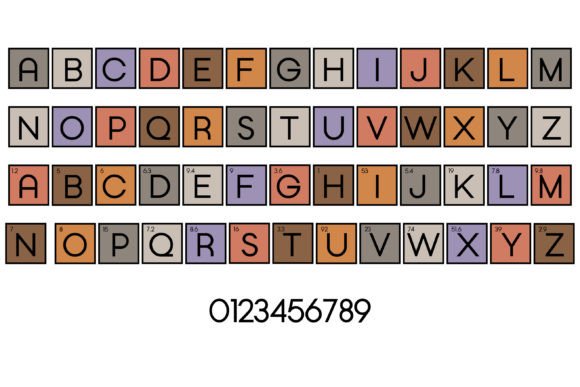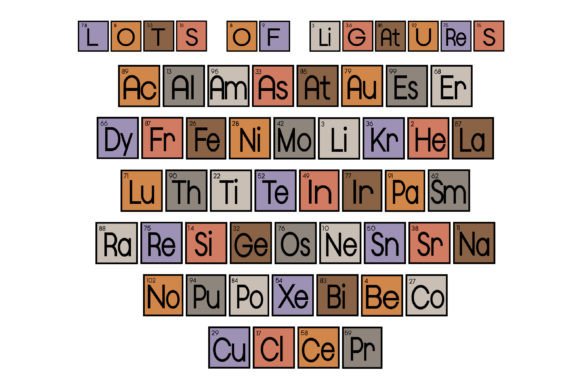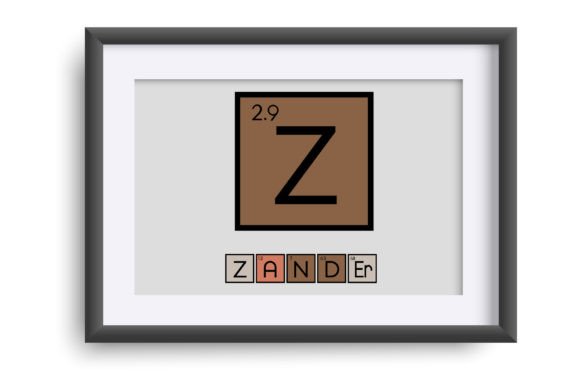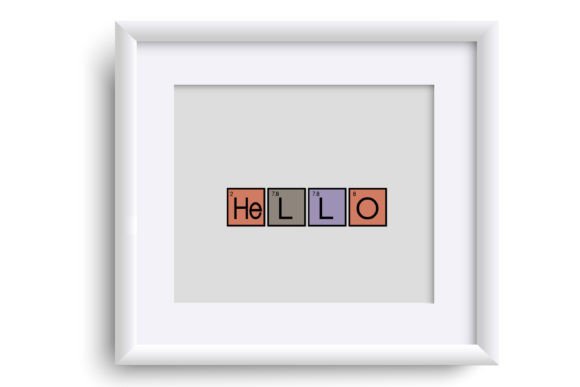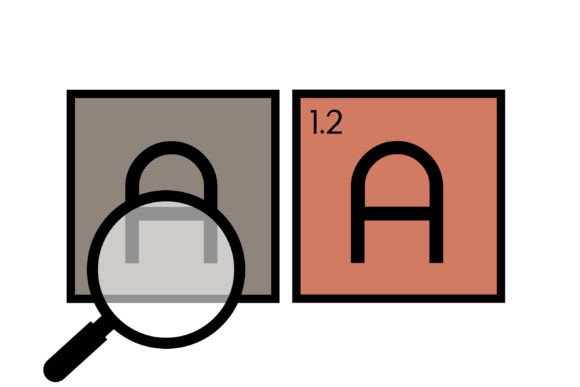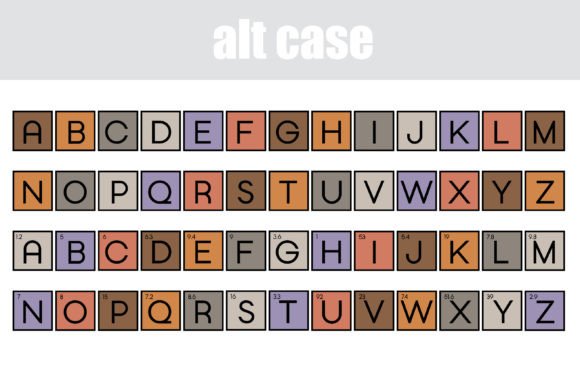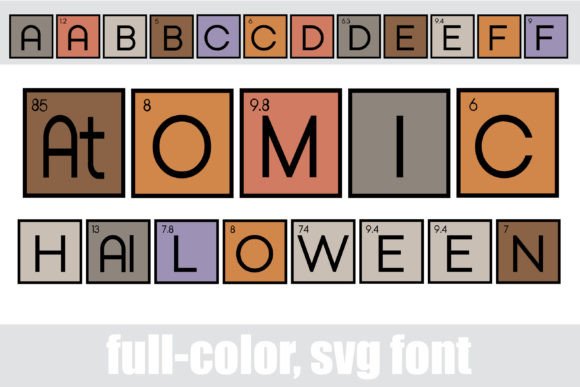
The Spooky-ooky Atomic Halloween Font: A Designer’s Dream Come True
I still remember the Halloween design project that sparked my obsession with the Atomic Halloween Font. I was working on a spooky-themed party invitation, and I just couldn’t find the perfect font to capture the eerie yet playful vibe. That was until I stumbled upon this unique font, featuring the periodic table of elements in a hauntingly beautiful Halloween color palette.
- Unique and eye-catching design featuring the periodic table of elements
- Halloween color palette that’s perfect for spooky-themed designs
- Uppercase letters without atomic numbers, while lowercase letters include them
- Fun ligatures like “At” and “Al” add a playful touch
The Not-So-Good: ⚠️
The Atomic Halloween Font was inspired by the periodic table of elements and the spooky atmosphere of Halloween. The designer wanted to create a font that was both educational and eerie, perfect for designers looking to add a touch of personality to their Halloween designs.